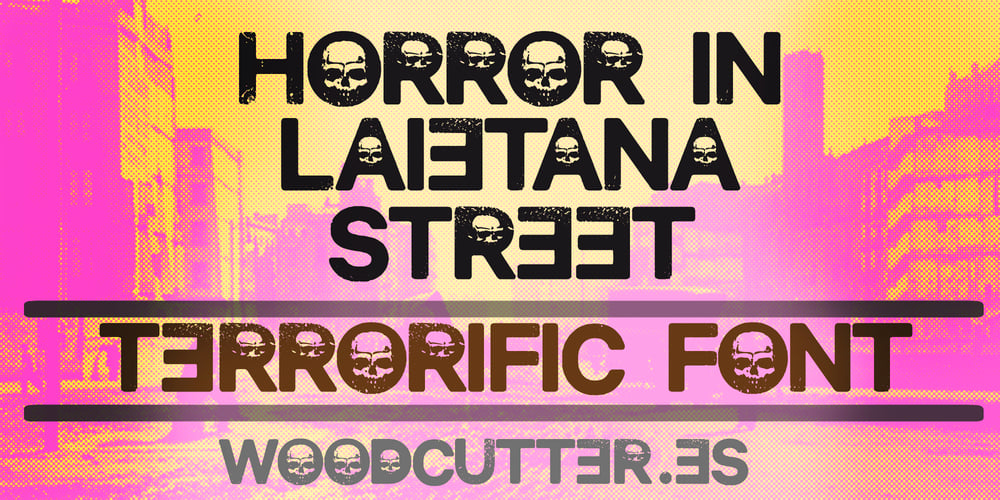
Horror in Laietana Street Font Family was designed by Jordi Manero and published by Woodcutter. Horror in Laietana Street contains 1 styles and family package options. “Horror in Laietana Street” is an uppercase font that plays with slight alterations in its letters, such as an inverted “E,” adding a disconcerting and sinister touch. What truly sets this typeface apart is the inclusion of skulls replacing the voids of each letter, enhancing its grim and dark aesthetic. This font is perfect for horror posters and designs, providing a visually striking and disturbing style. “Horror in Laietana Street” captures the essence of the macabre with a creative and surprising approach that is sure to catch anyone’s eye.